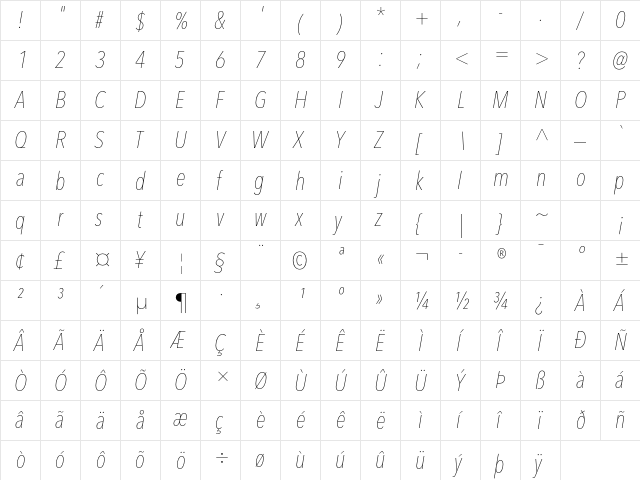
Avenir Next LT Pro Ultra Light Condensed Italic Font Preview
| Style | Ultra Light Condensed Italic |
| Foundry | Linotype Library GmbH |
| Designer | Adrian Frutiger and Akira Kobayashi |
Design Context for Avenir Next LT Pro Typeface
Avenir Next LT Pro offers clean, dependable letterforms without strong stylistic allegiance, making it a practical choice for designers who need flexibility. The slanted form adds forward momentum and visual energy. Its slender proportions lend an understated elegance to any composition. The condensed width makes it efficient for tight spaces without sacrificing legibility.
Pro Tip: Try Avenir Next LT Pro for annotation and caption copy alongside an upright companion — the contrast in angle creates a dynamic but ordered typographic system.